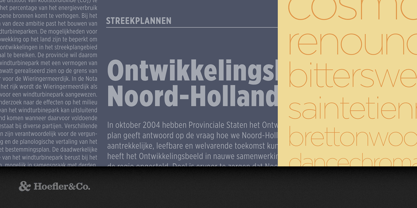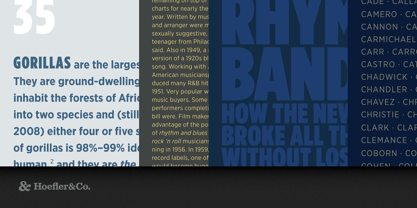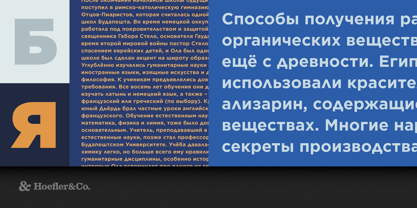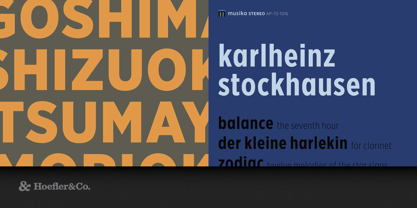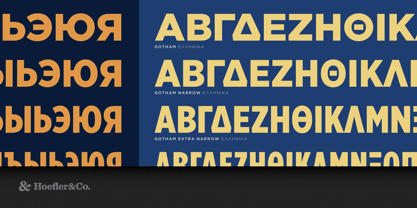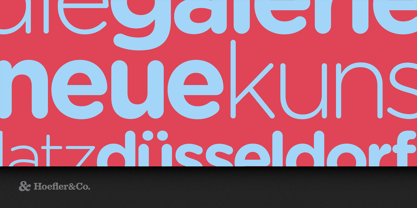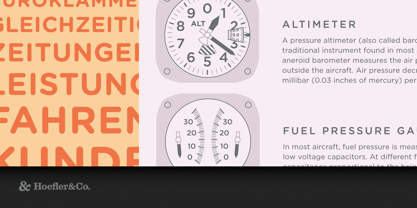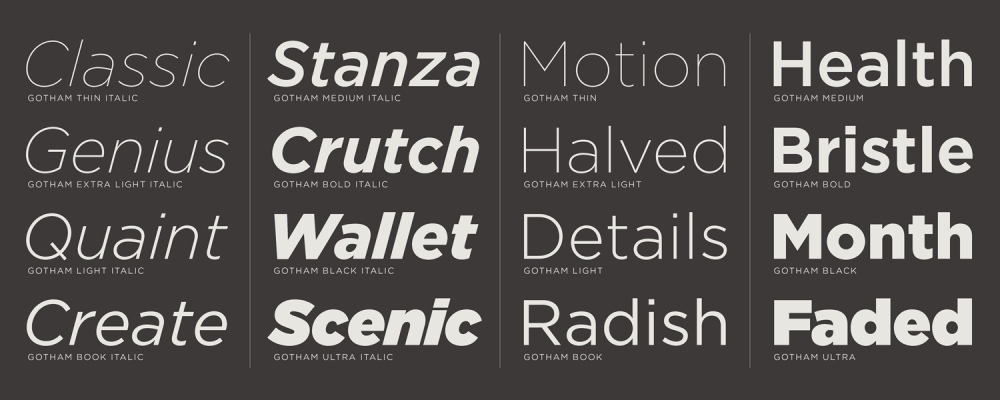
Gotham Font
The Gotham Font is perfect for modern corporate branding, sophisticated advertising campaigns, contemporary editorial designs, urban architecture signage, presidential communications, luxury brand identities, clean web interfaces, professional presentation materials, metropolitan transit systems, and authoritative government publications.
What makes the Gotham Font so exciting is its perfect embodiment of American design confidence with geometric precision that creates an unmistakable authority and contemporary sophistication ideal for brands demanding both credibility and modern appeal. This iconic typeface features strong geometric construction, balanced letter proportions, and clean architectural lines that establish trustworthy communication perfect for organizations seeking to project confidence, reliability, and modern American excellence. The font's authoritative personality and versatile functionality make it an exceptional choice for institutions and brands seeking to communicate strength, trustworthiness, and contemporary leadership with enduring visual impact.
The Gotham Font family includes comprehensive weight variations, featuring Thin, Light, Book, Medium, Bold, and Black options, plus condensed and extended versions with matching italics. Each weight maintains the signature authoritative appeal while offering different levels of visual presence and typographic flexibility, providing designers with complete control for creating powerful brand hierarchies and sophisticated communication systems.
The sophisticated geometric engineering of Gotham Font demonstrates expert contemporary typography craftsmanship, with each character optimized for maximum impact, exceptional legibility, and visual consistency across all sizes and applications. The font's comprehensive character set includes international language support, professional punctuation, institutional symbols, and complete numeric sets, ensuring seamless functionality for global operations and diverse professional communications.
Expertly engineered for both digital and print applications, this remarkable font maintains perfect clarity and authoritative presence across all media formats and institutional contexts. From large-scale architectural signage to detailed government documents, Gotham Font performs exceptionally while preserving its distinctive contemporary character and professional authority.